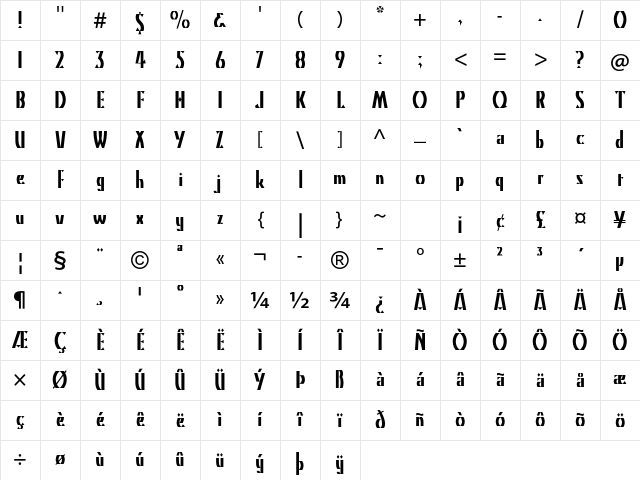
Kino MT Std Regular
Designer: Martin Dovey
Design Context for Kino MT Std
Kino MT Std is a composed and adaptable typeface that performs quietly and consistently across a wide range of design contexts.